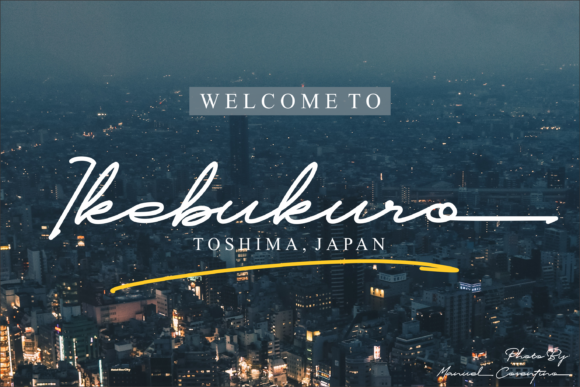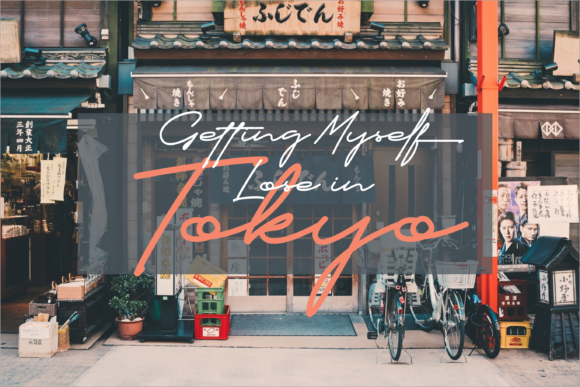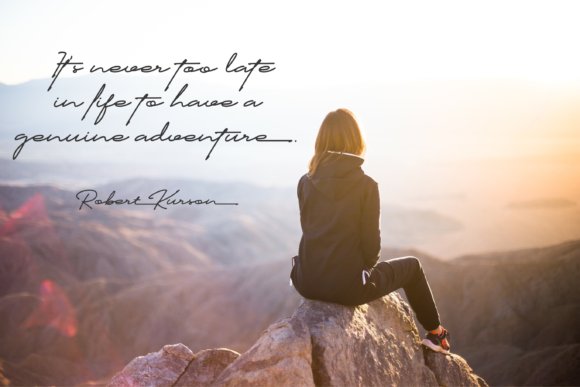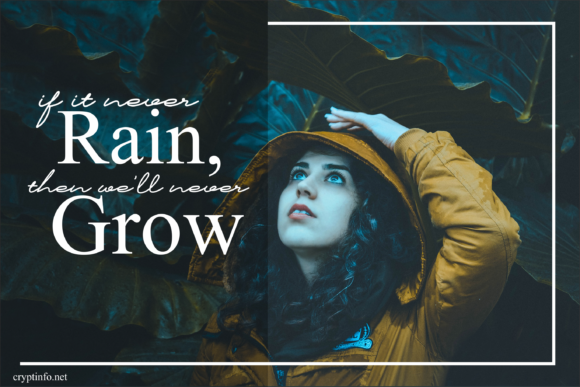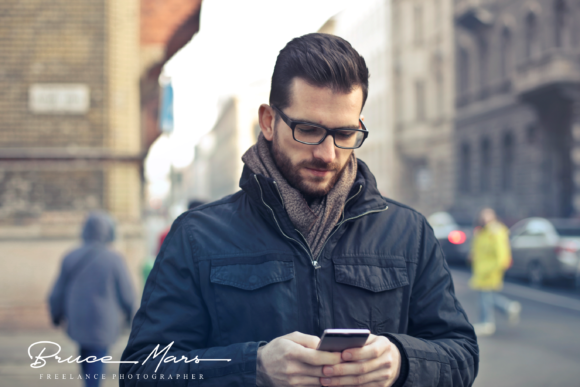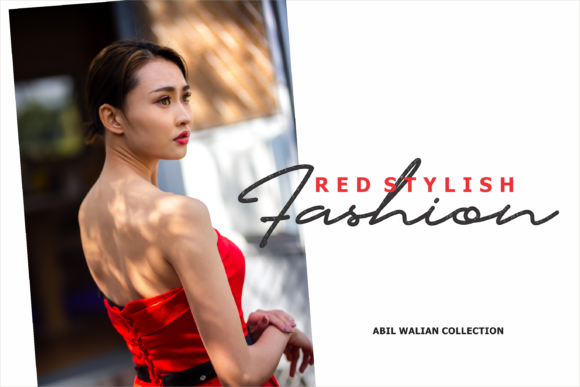
Introduction to Profiles Font
Profiles is a light and elegant handwritten font with an authentic touch.
It will add a a sophisticated touch to any design project .
Key Features of Profiles Font